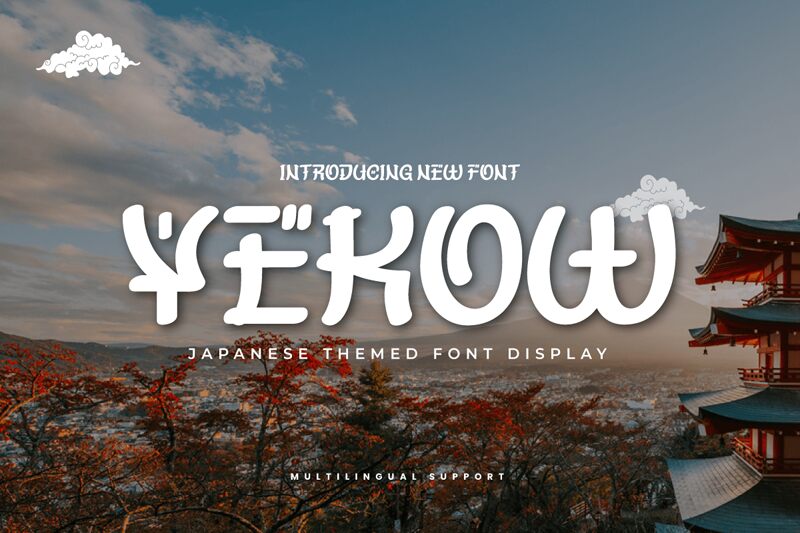
Yekow font family by productype.com consists of 2 font styles. This modern foreign font is sleek in appearance and inspired by Asian calligraphy. Highlighted by its visual harmony, beautiful curves, and modulated strokes, each letter embodies a vibrant flare. It is distinctive yet repetitive, elegant yet dynamic, and consistently appealing to the human eye. Unlike usual fonts, Yekow offers the perfect fusion of futuristic and traditional landmarks.
Unlock new limitless design possibilities by utilizing this typeface in posters, magazines, books, digital applications, websites, and futuristic projects. It will also benefit East Asian or Japanese-themed branding projects, video games, attractive headlines, and banner advertisements.